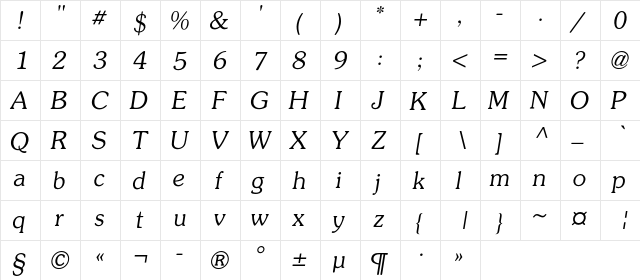
AGPresquireC Italic
Design Context for AGPresquireC Typeface
AGPresquireC offers clean, dependable letterforms without strong stylistic allegiance, making it a practical choice for designers who need flexibility. The dynamic lean of this cut emphasises speed and emphasis in any layout.
Pro Tip: Use AGPresquireC for emphasis, pull quotes, and subheadings where its slanted energy can add rhythm to the layout.